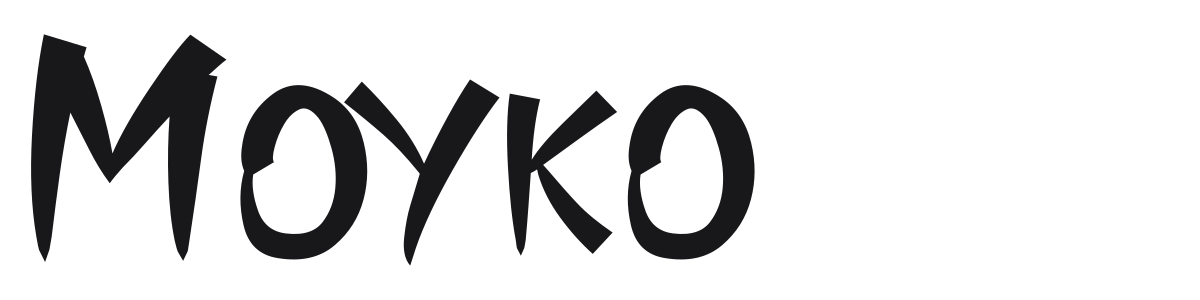
Moyko
Moyko is a thick, casual handwritten face from Khurasan with bold strokes that feel like someone went at it confidently with a chunky marker. The letterforms have a quirky, slightly uneven quality that keeps things playful without losing legibility, making it a solid pick for headlines, packaging, and informal branding where you want something that feels human and a little offbeat.